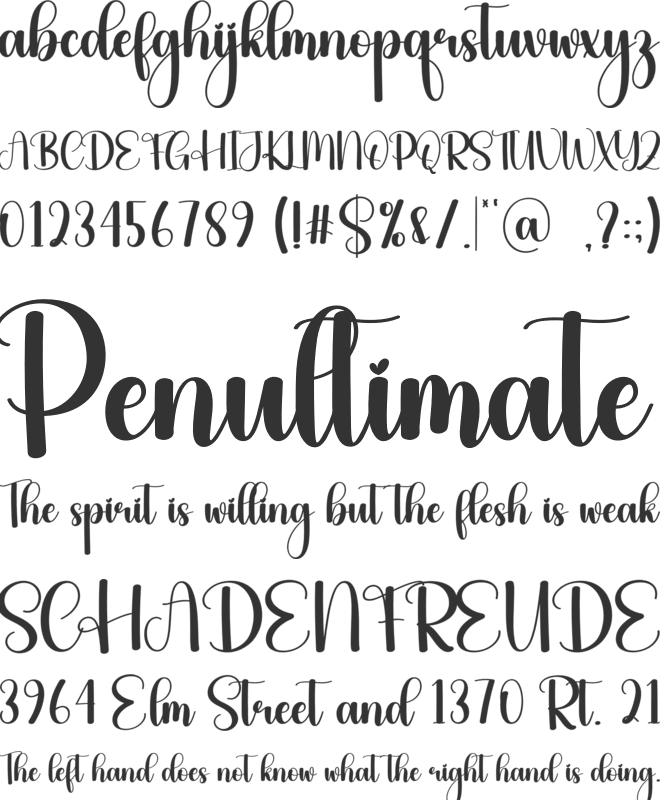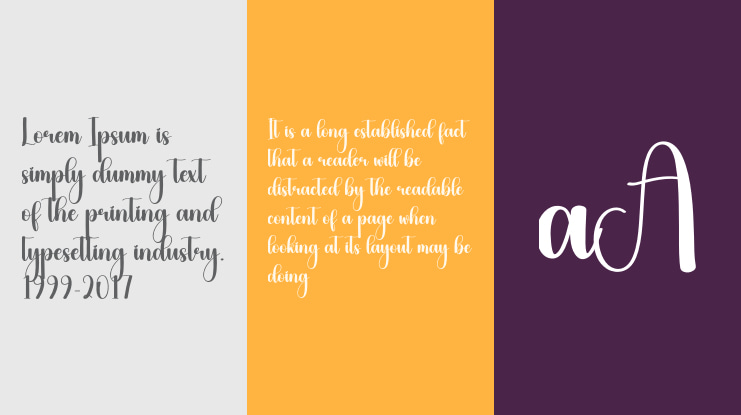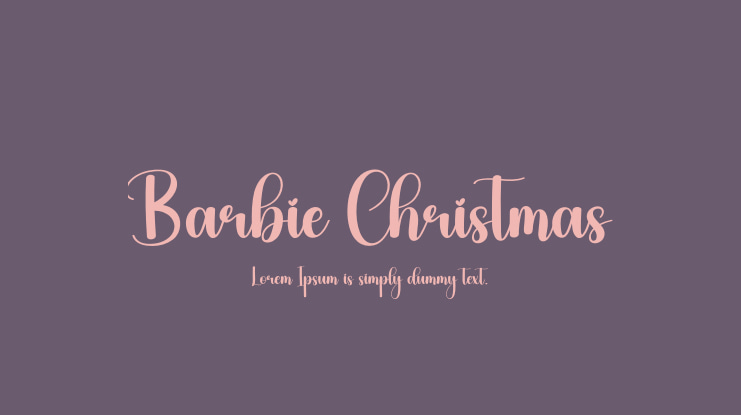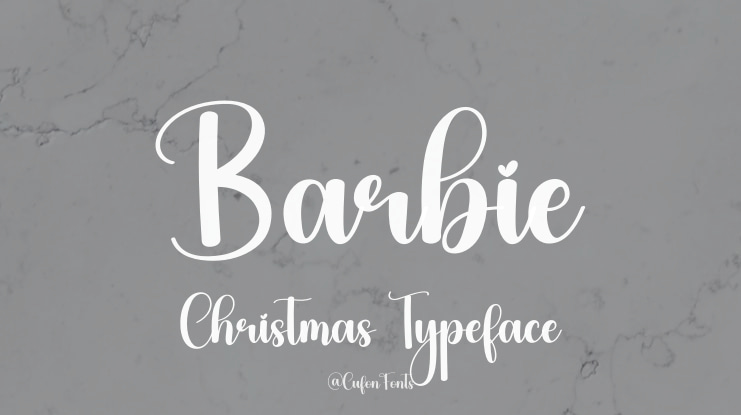
Barbie Christmas Font
Our Letters
Our latest style letters are perfect for wall displays, wedding invitations, social media post logos, advertisements, product packaging, product designs, labels, photography, watermarks, invitations, stationery, and any project that requires elegant handwriting.